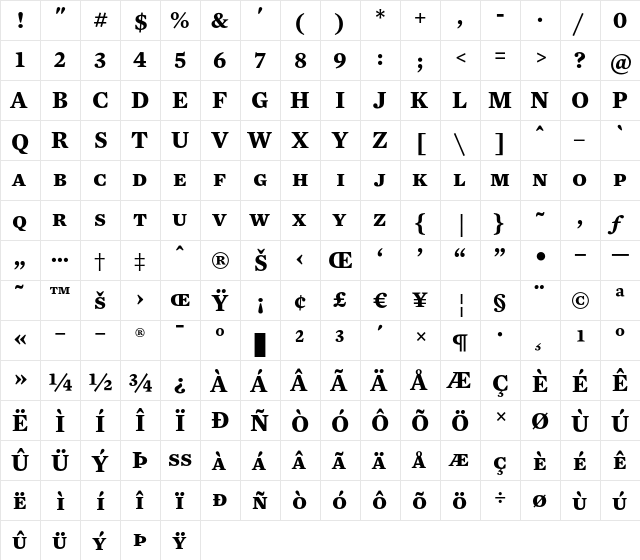
Mercury Text G2 Bold SC
Design Context for Mercury Text G2 Typeface
Mercury Text G2 offers clean, dependable letterforms without strong stylistic allegiance, making it a practical choice for designers who need flexibility. Its bold stroke weight gives it real presence on the page.
Pro Tip: Use Mercury Text G2 in both headline and body roles to test its range before committing to a single application.